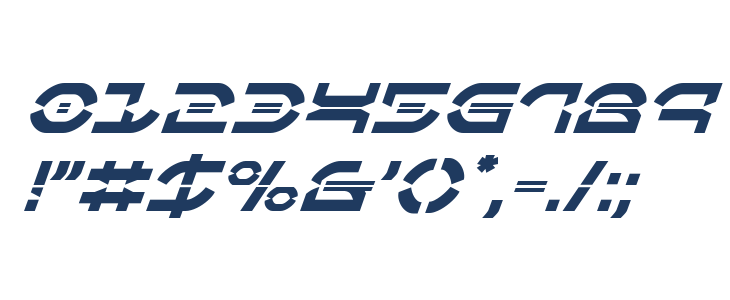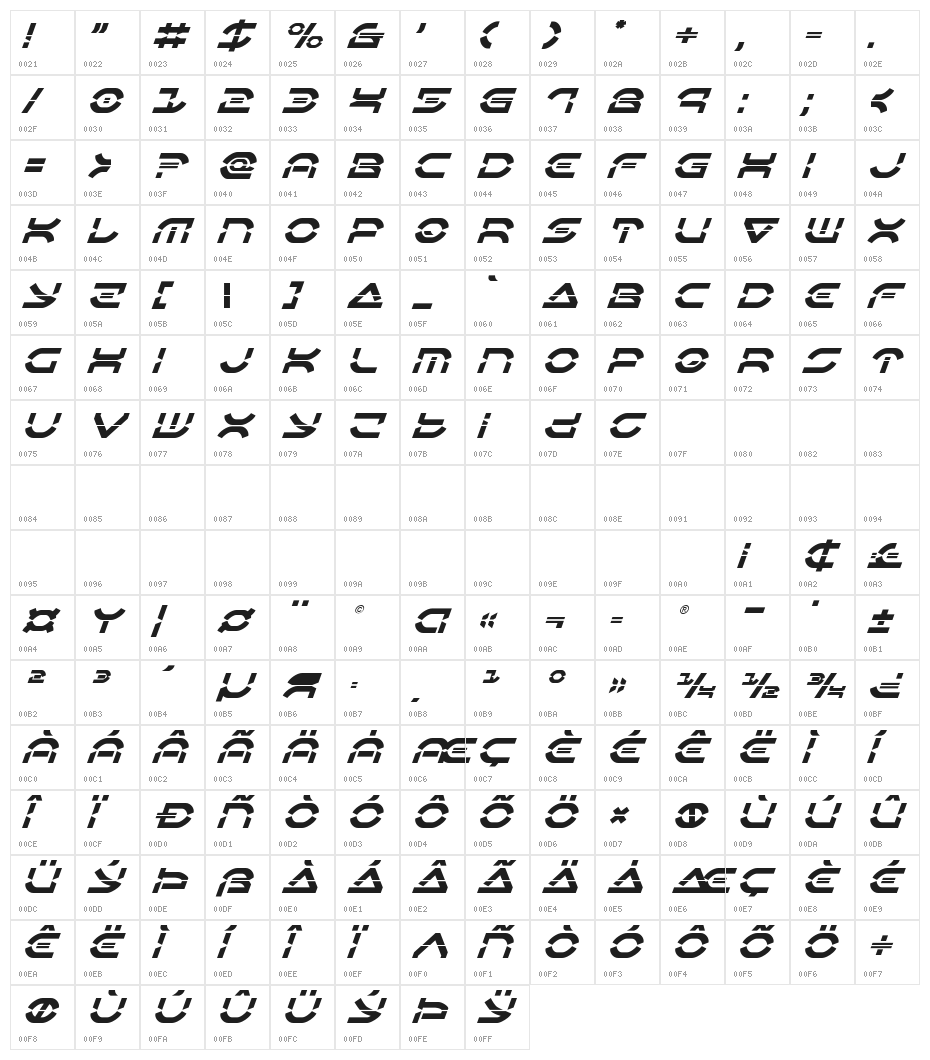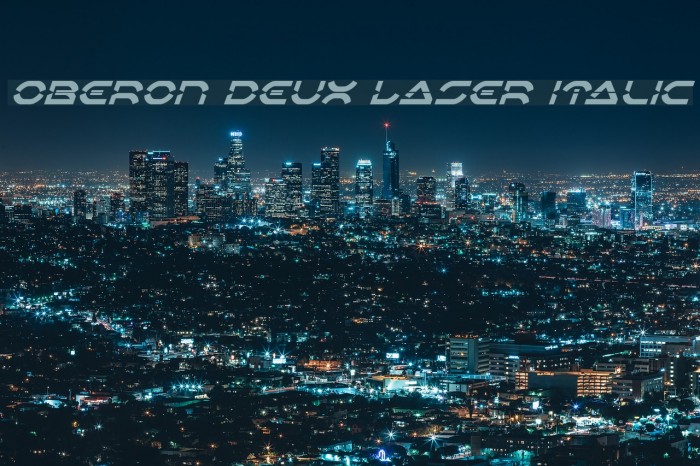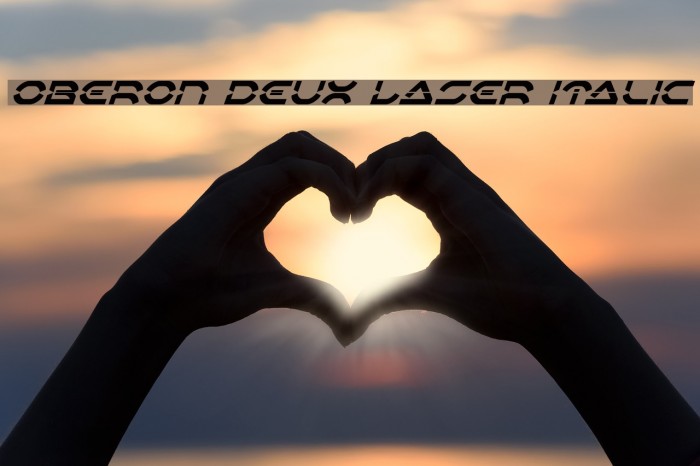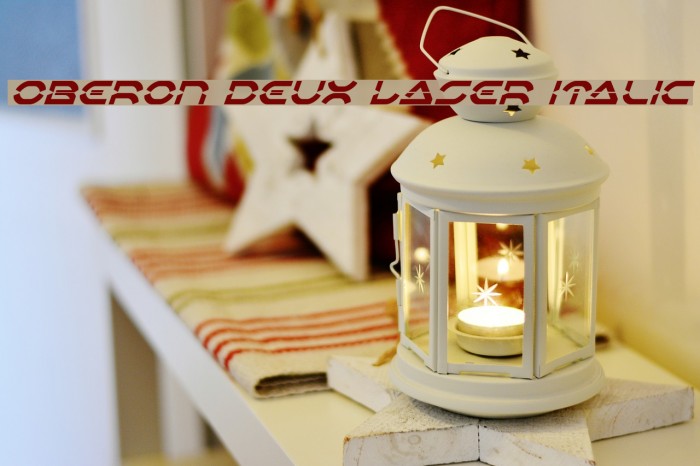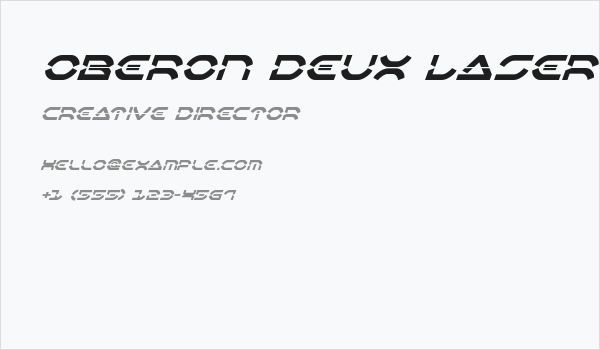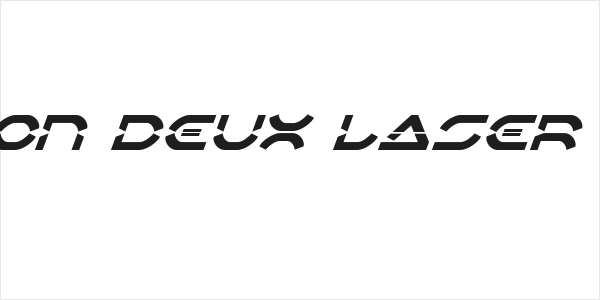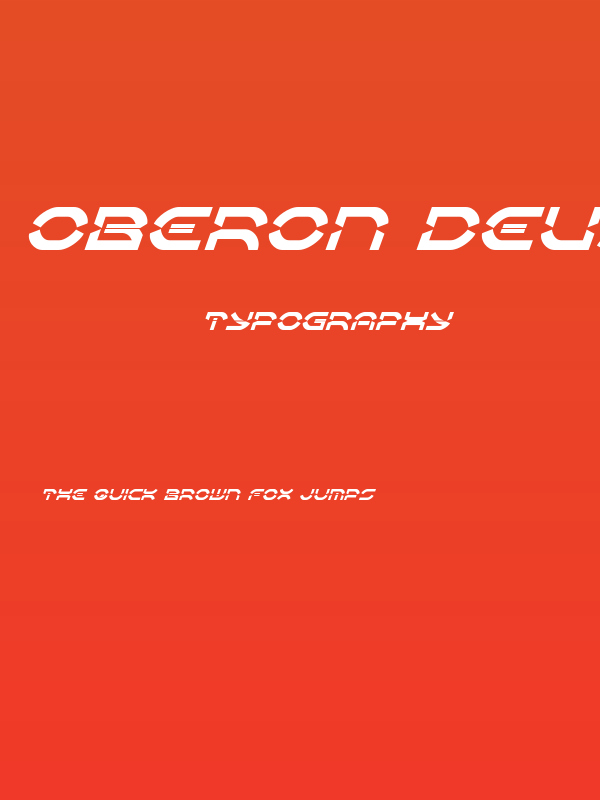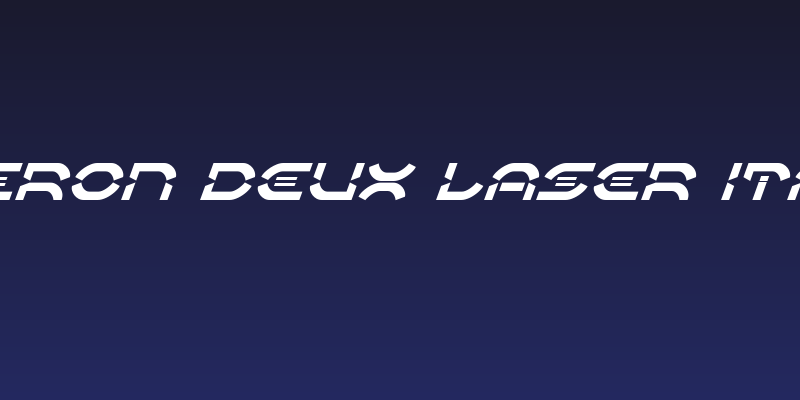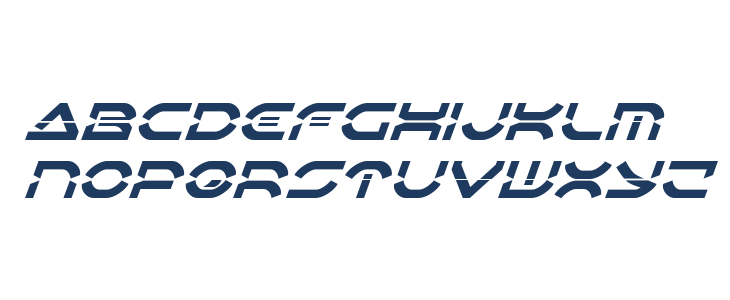
Oberon Deux Laser Italic Font
Oberon Deux Laser Italic Description
This font features a futuristic and dynamic design with sharp angles and geometric shapes. The characters are crafted with a sleek, italicized style that gives a sense of motion and speed. The use of bold, solid lines and cut-out sections within the letters creates a striking visual effect, reminiscent of sci-fi and high-tech aesthetics. The font maintains a consistent width across characters, providing a uniform appearance. Its unique style makes it stand out, suitable for projects that require a modern and edgy look.
| Proposed Projects | Ideal for sci-fi themed designs, tech company logos, video game titles, and futuristic posters. |